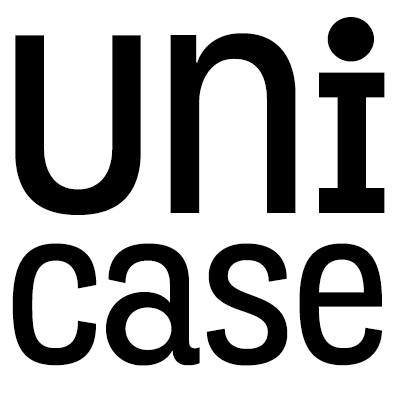
An alphabet that doesn’t have different letter cases. This can relate to certain scripts (e.g. Arabic, Hebrew, Georgian), but also to certain typefaces where elements of a bicameral script like Latin are combined into one alphabet.
French: Monocaméral
German: einhäusiges Alphabet, unikameral
Spanish: Monocaja